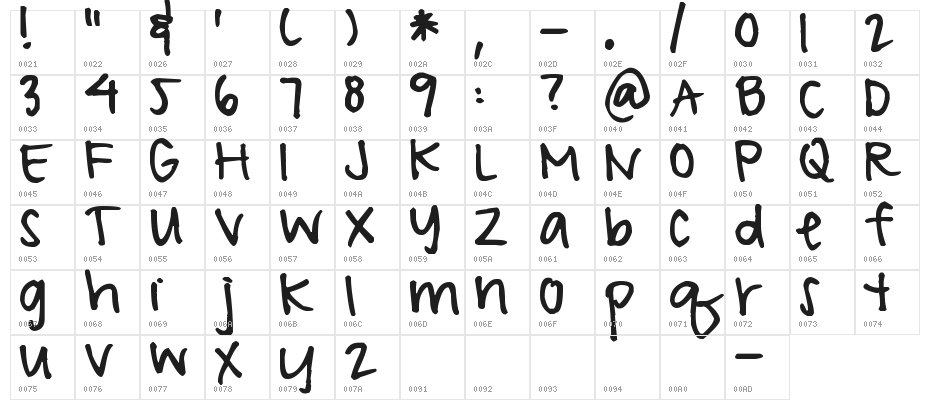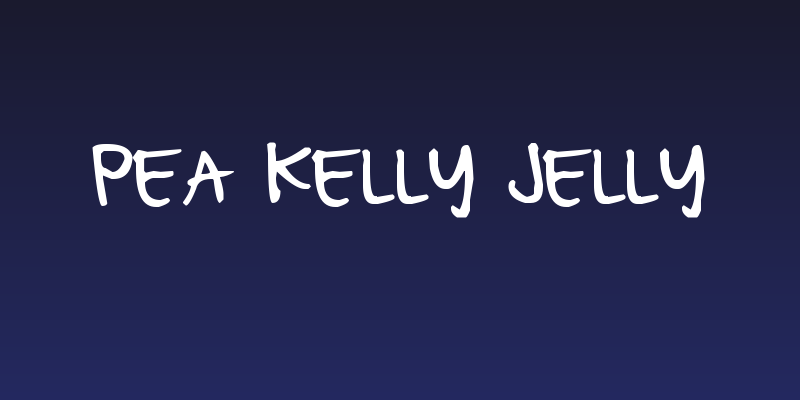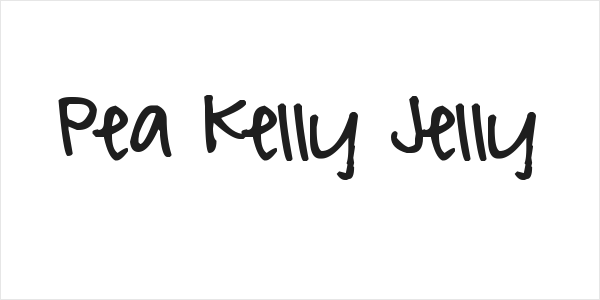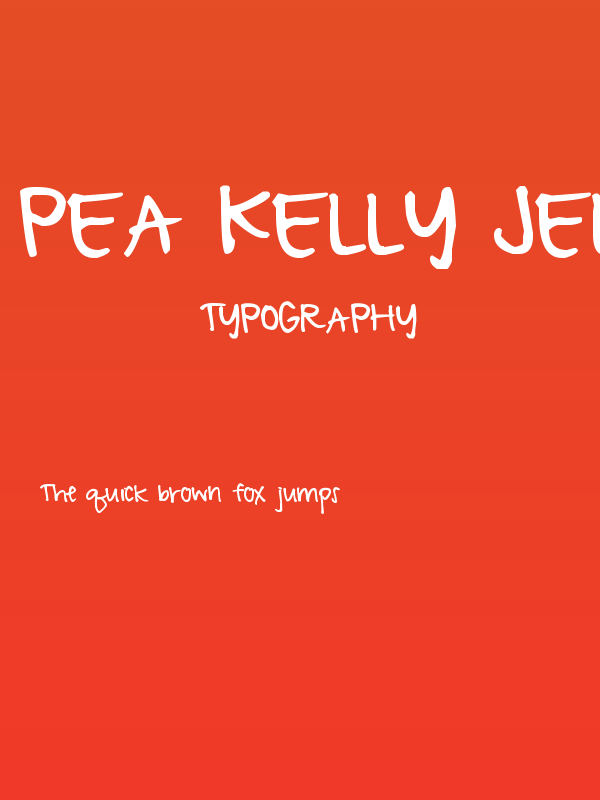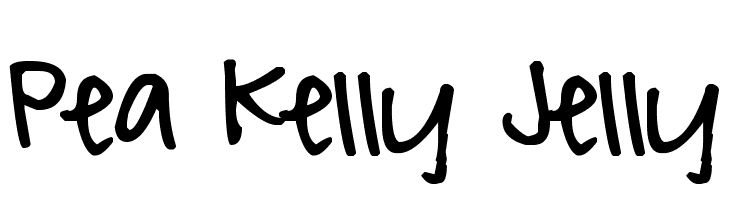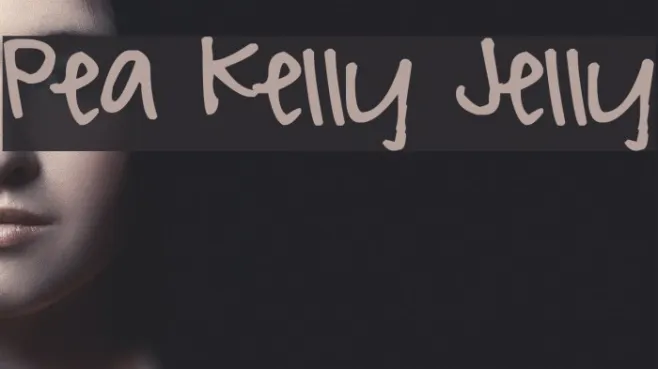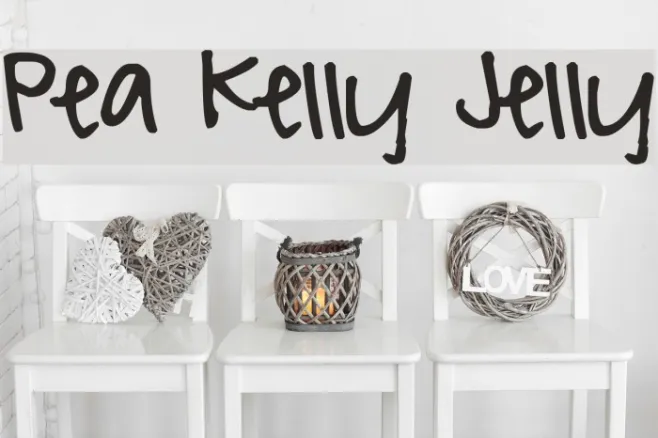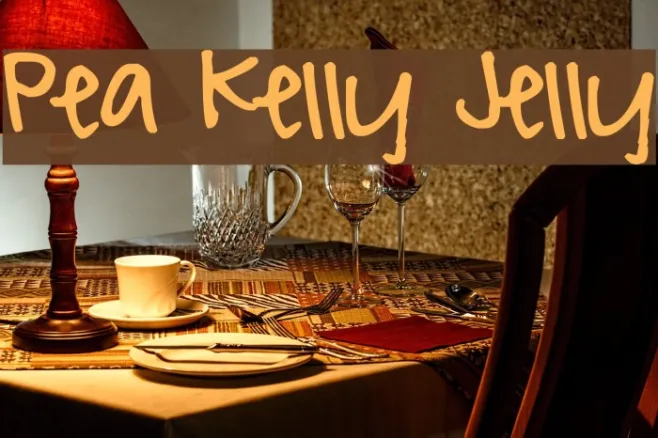
Pea Kelly Jelly Font
| Stile generale | Casual, Playful |
| Caso d'uso | Headlines, Informal Text, Creative Projects |
| Progetti proposti | Ideal for greeting cards, children's books, personal blogs, and informal branding projects. |